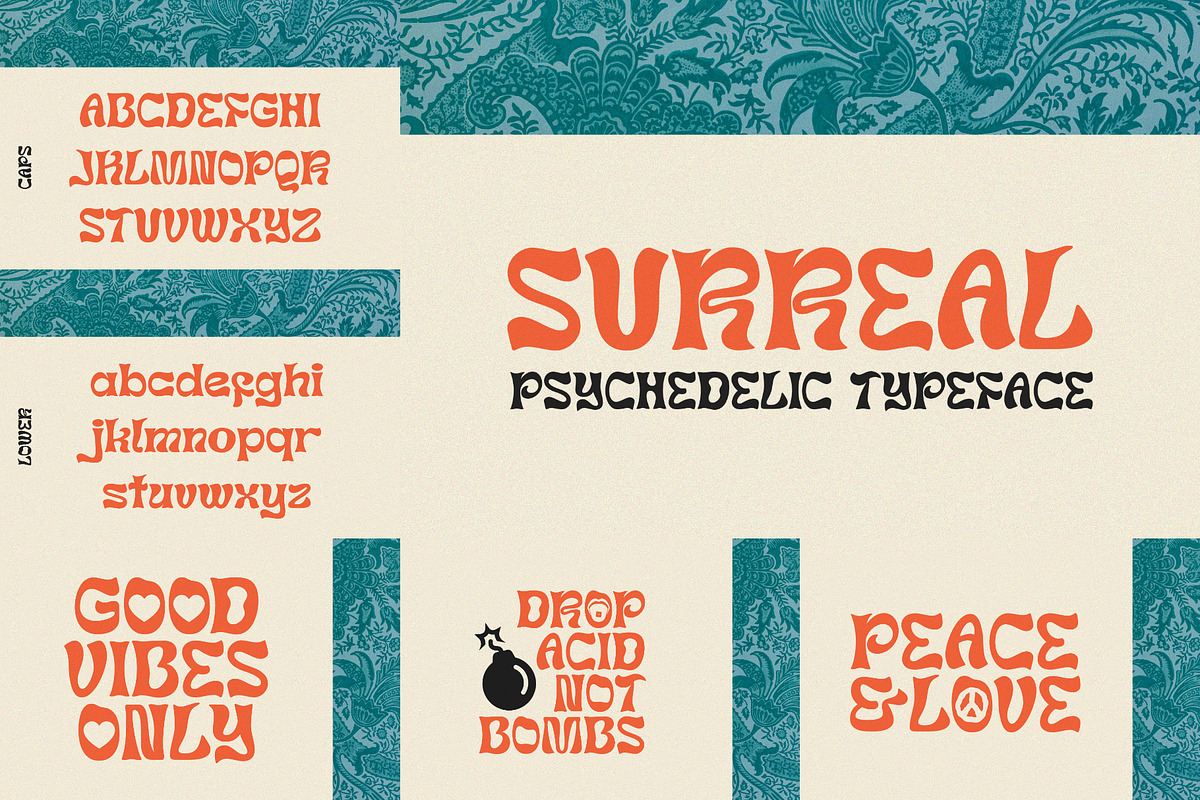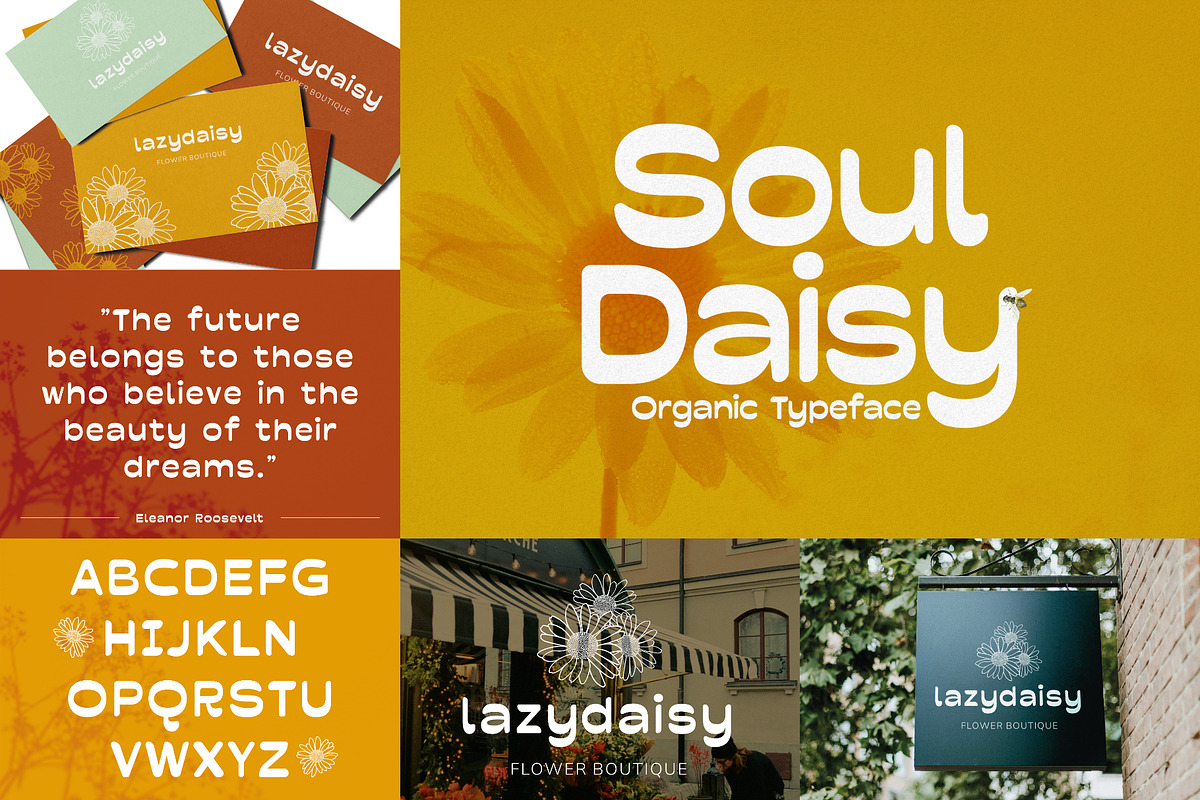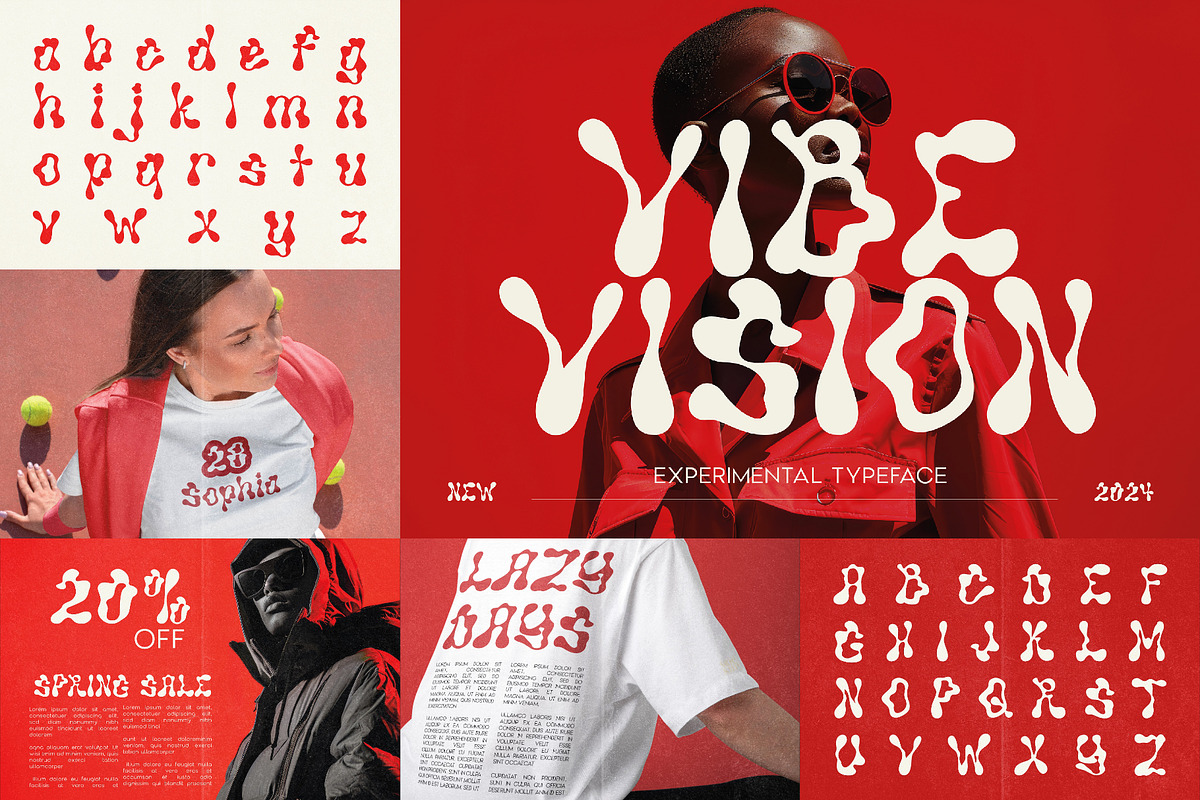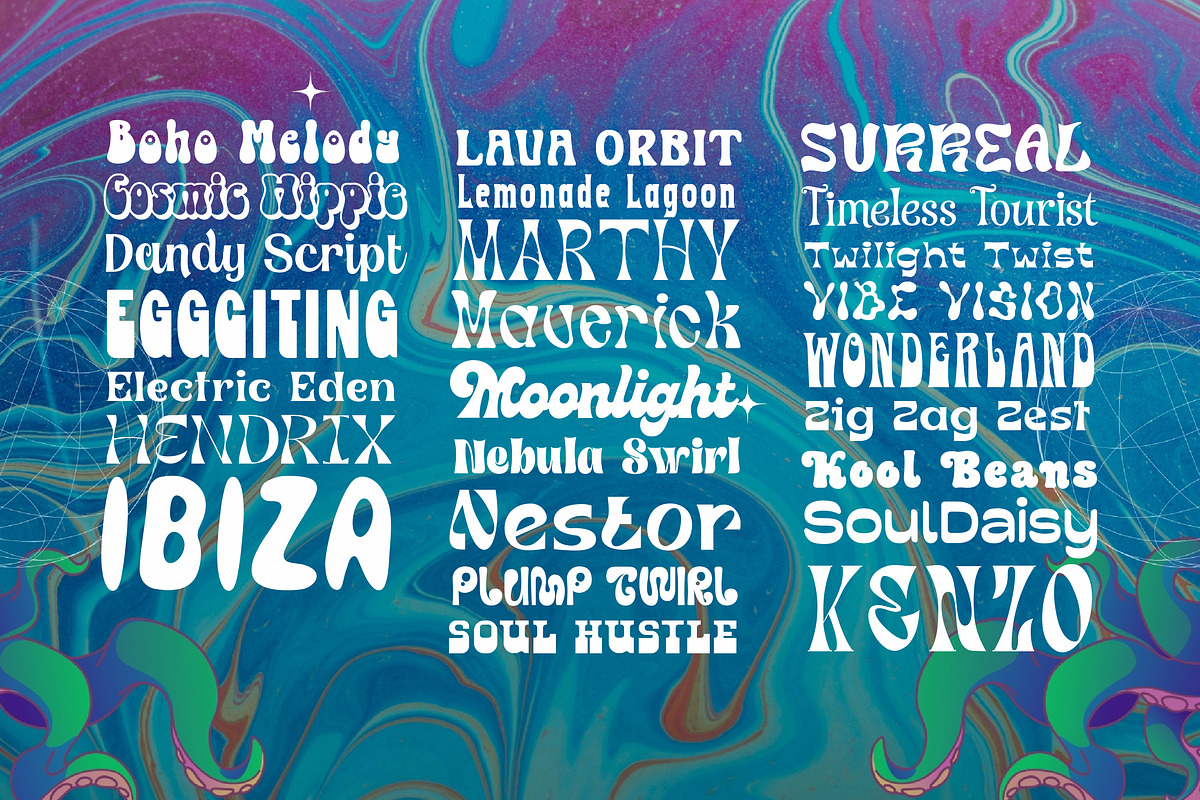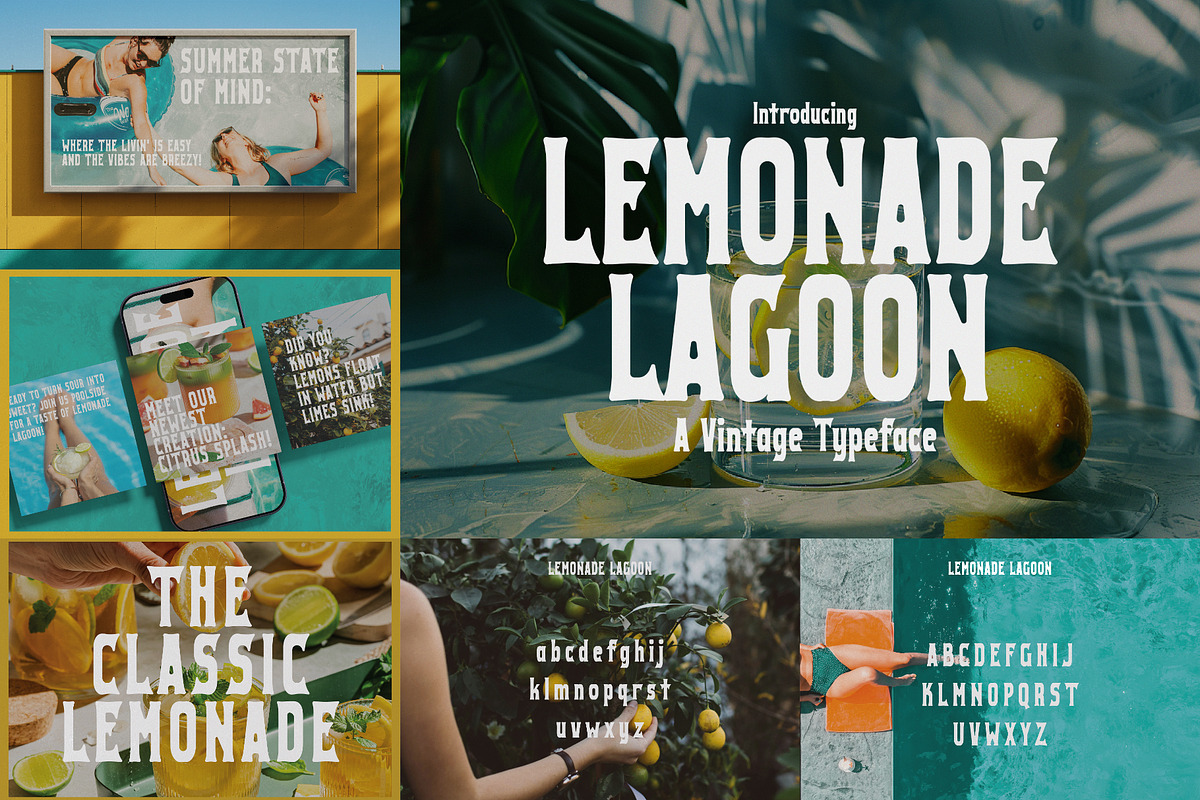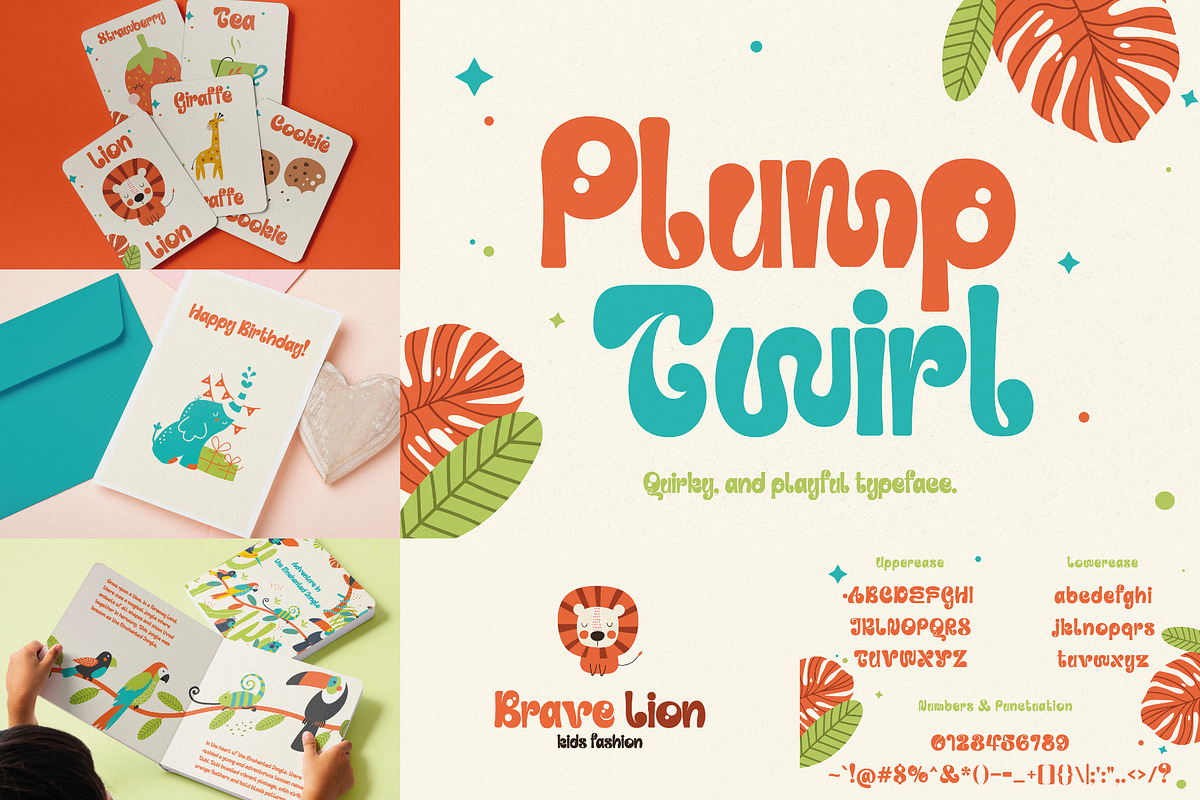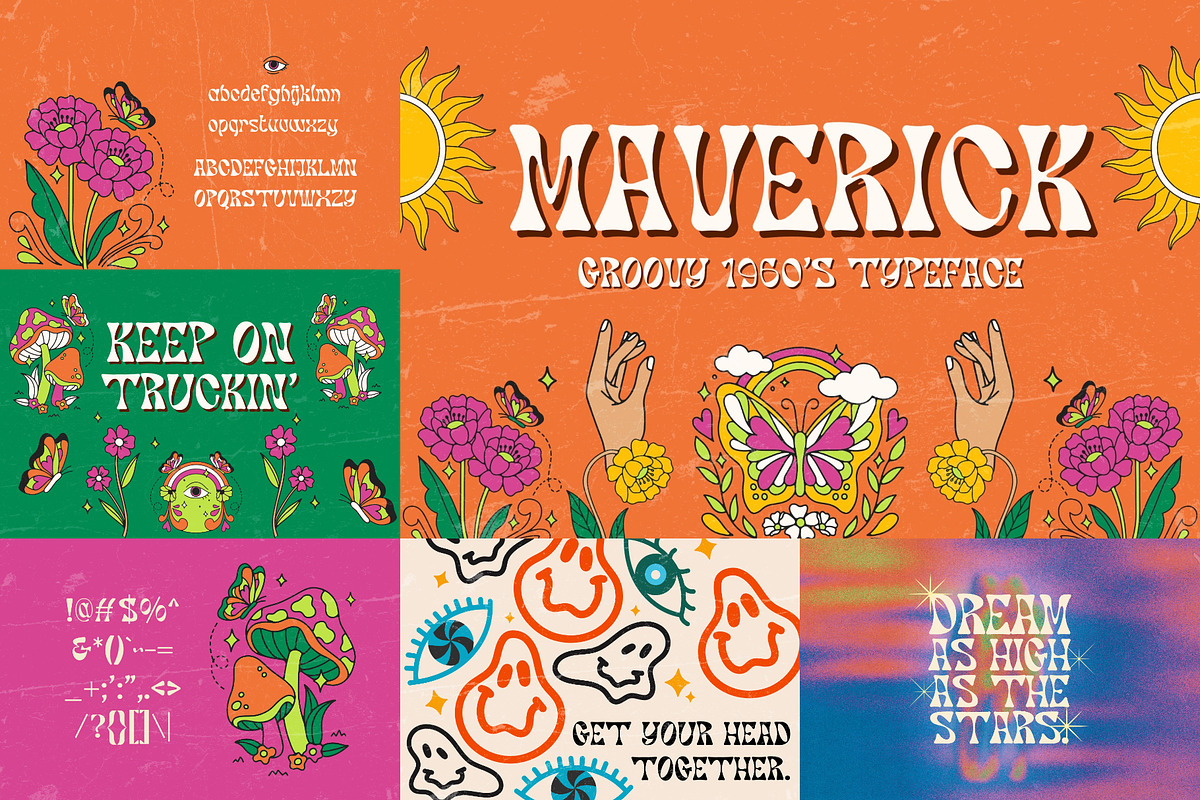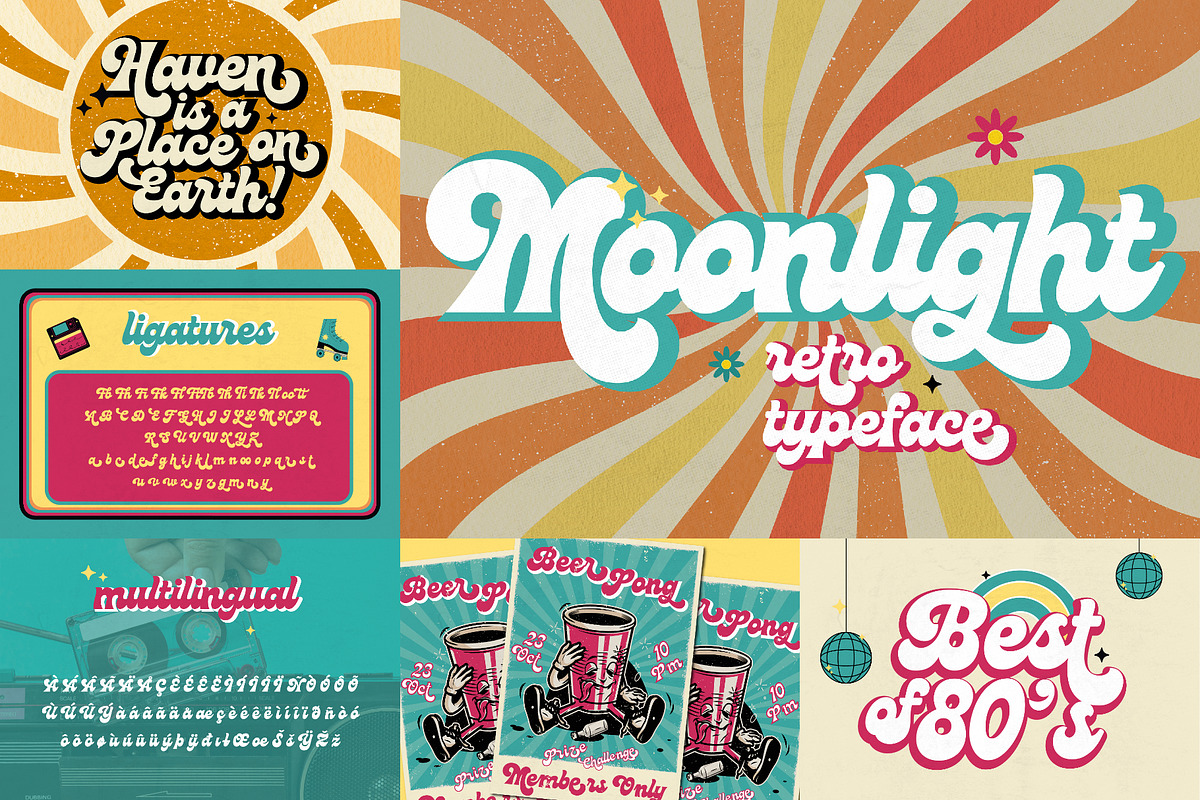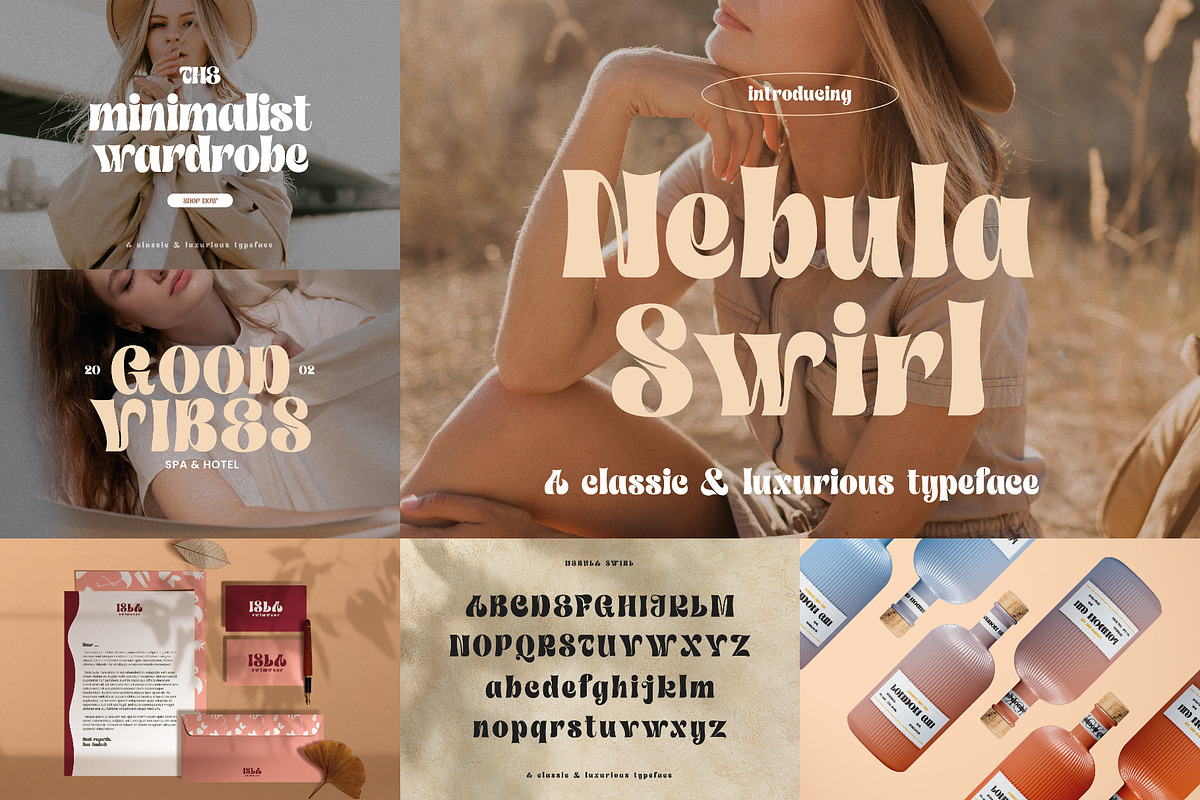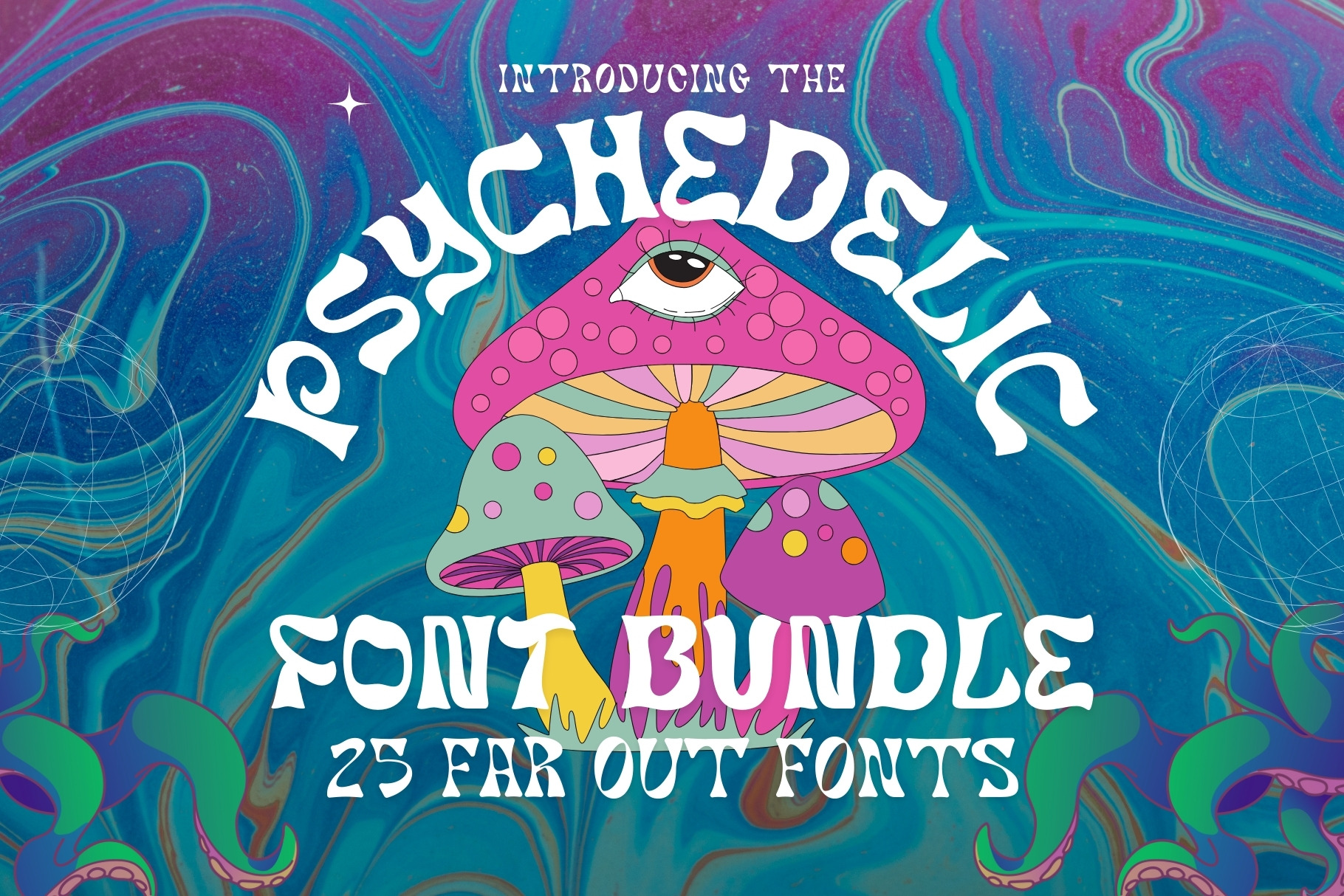
Psychedelic Font Bundle (25 Fonts!)
Get ready to turn up the vibes and let your creativity run wild with the Psychedelic Font Bundle — a mind-bending collection of 25 groovy, hippie-inspired typefaces that channel the spirit of the ‘60s and ‘70s like a lava lamp on overdrive.
These fonts are bold. They’re funky. They’re drenched in tie-dye dreams and flower power energy. Whether you're designing posters, album covers, social content, merchandise, or branding that needs to pop with personality, this bundle is your backstage pass to unforgettable, retro-inspired design.
- 25 totally rad and retro fonts
- Perfect for vintage, psychedelic, music, and festival-inspired projects
- A kaleidoscope of styles: wavy, swirly, bubbly, bold, and beyond
So if you're ready to bring the groove back to your designs, hop on the magic bus and grab the Psychedelic Font Bundle. Your creative trip begins here.